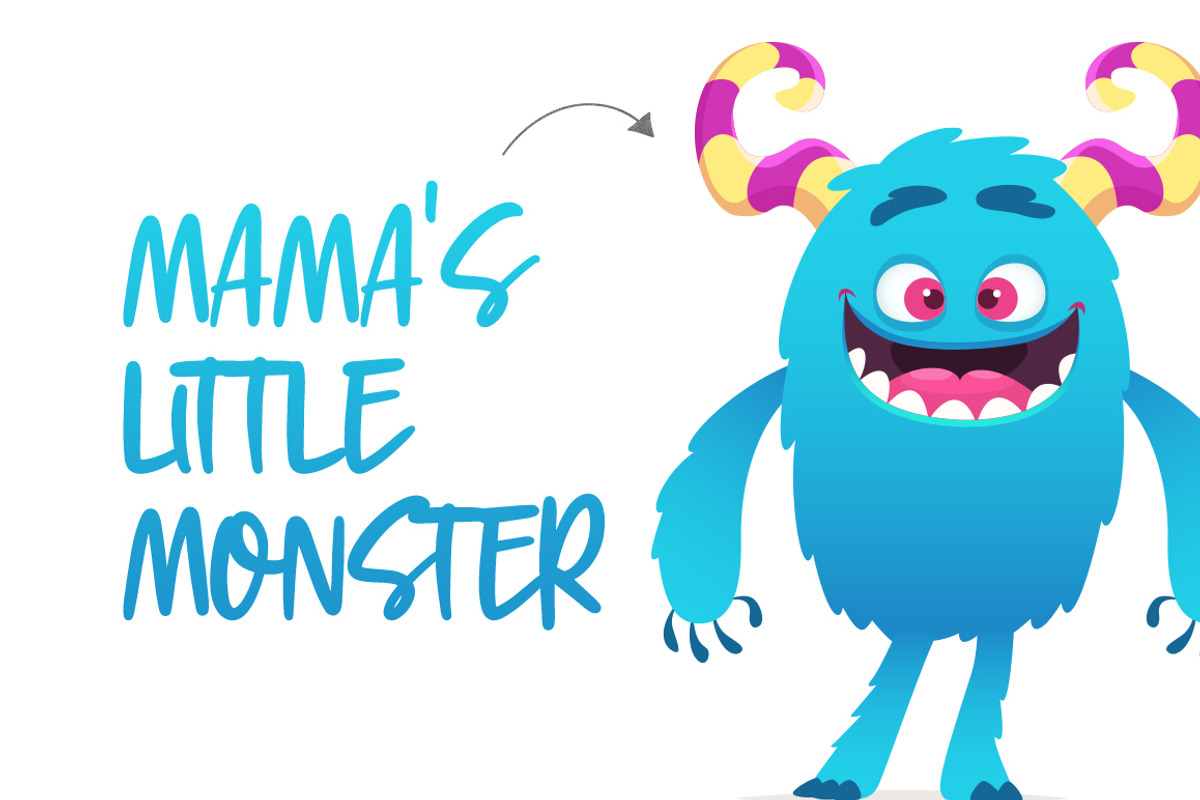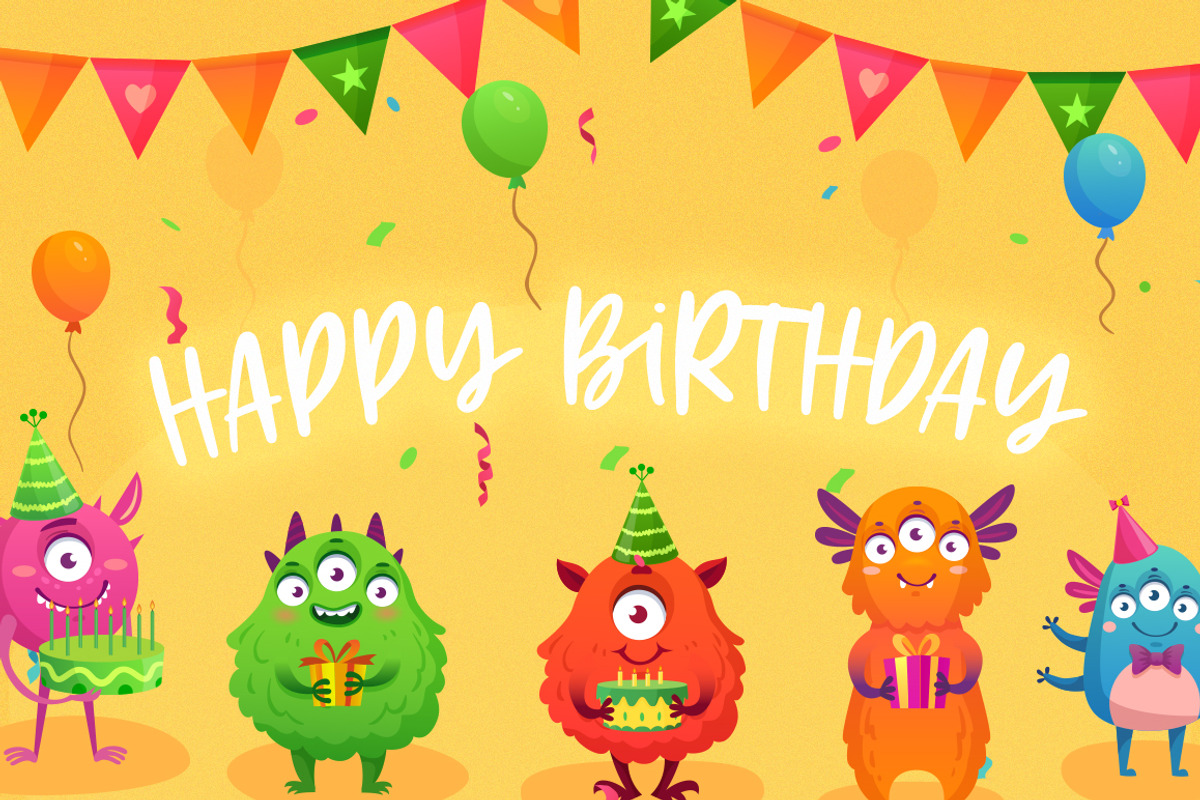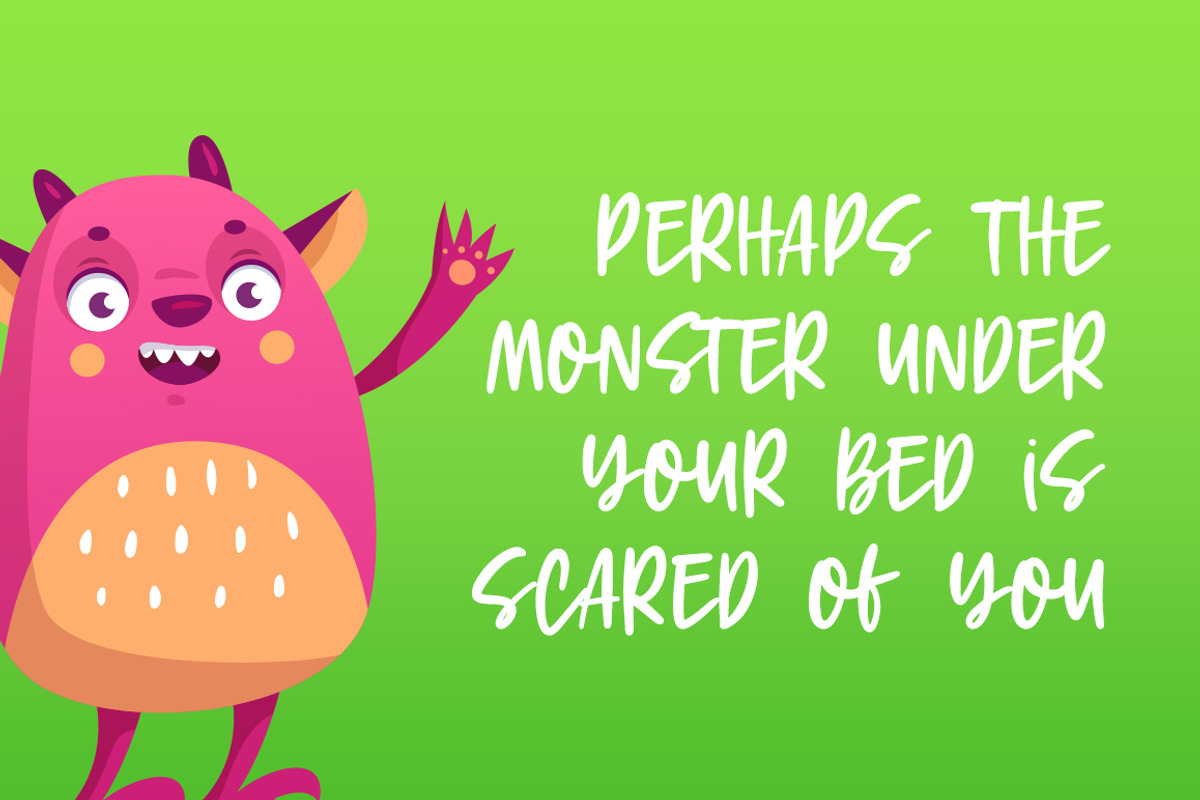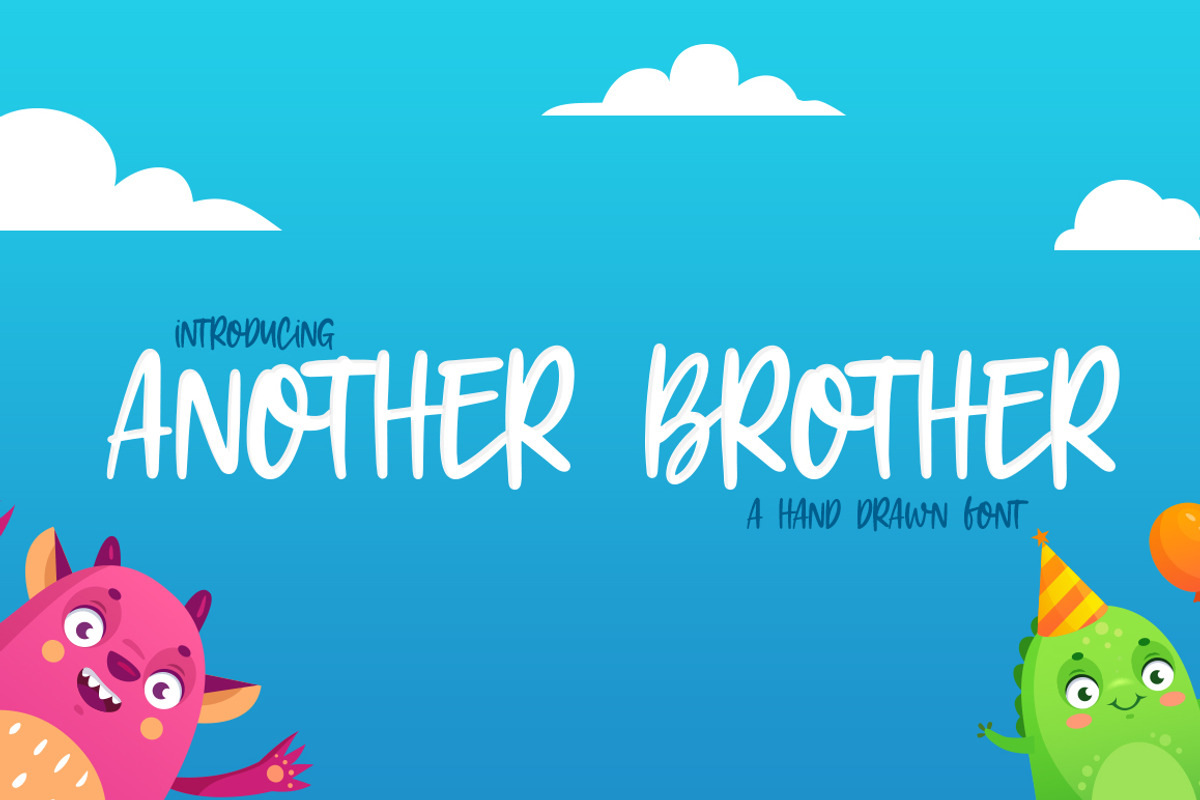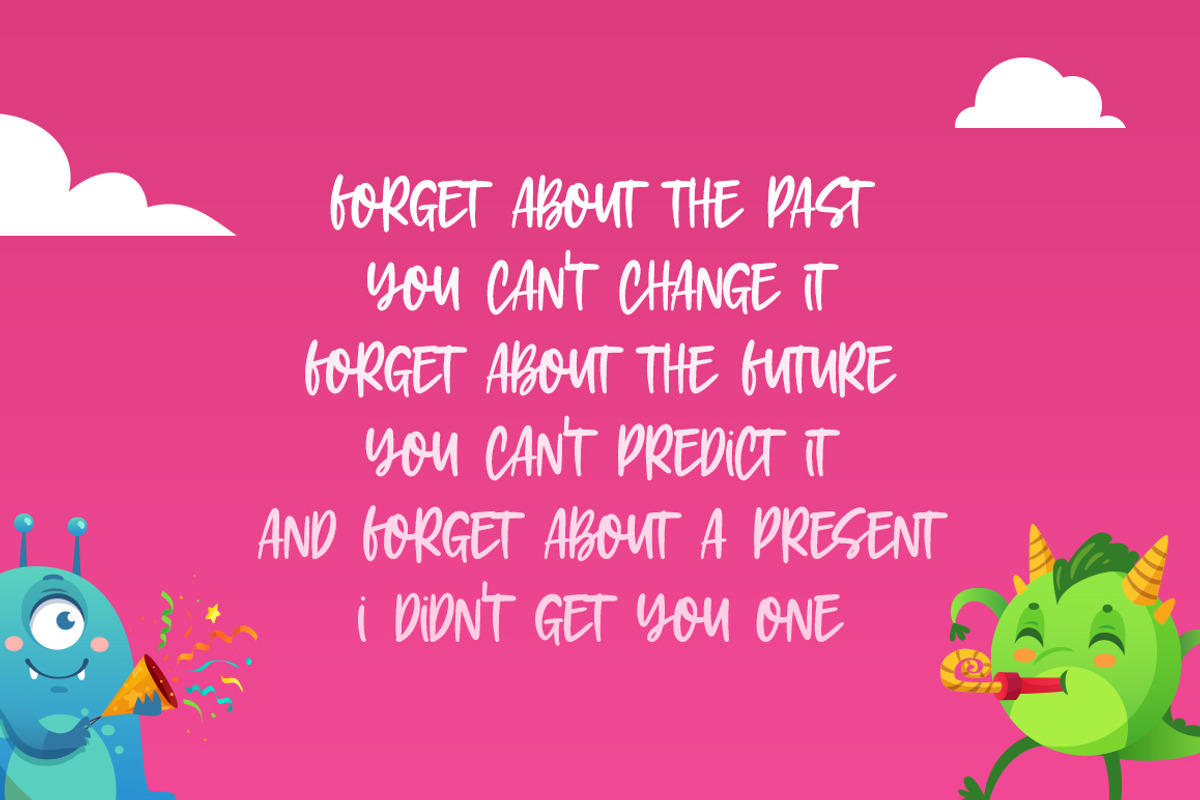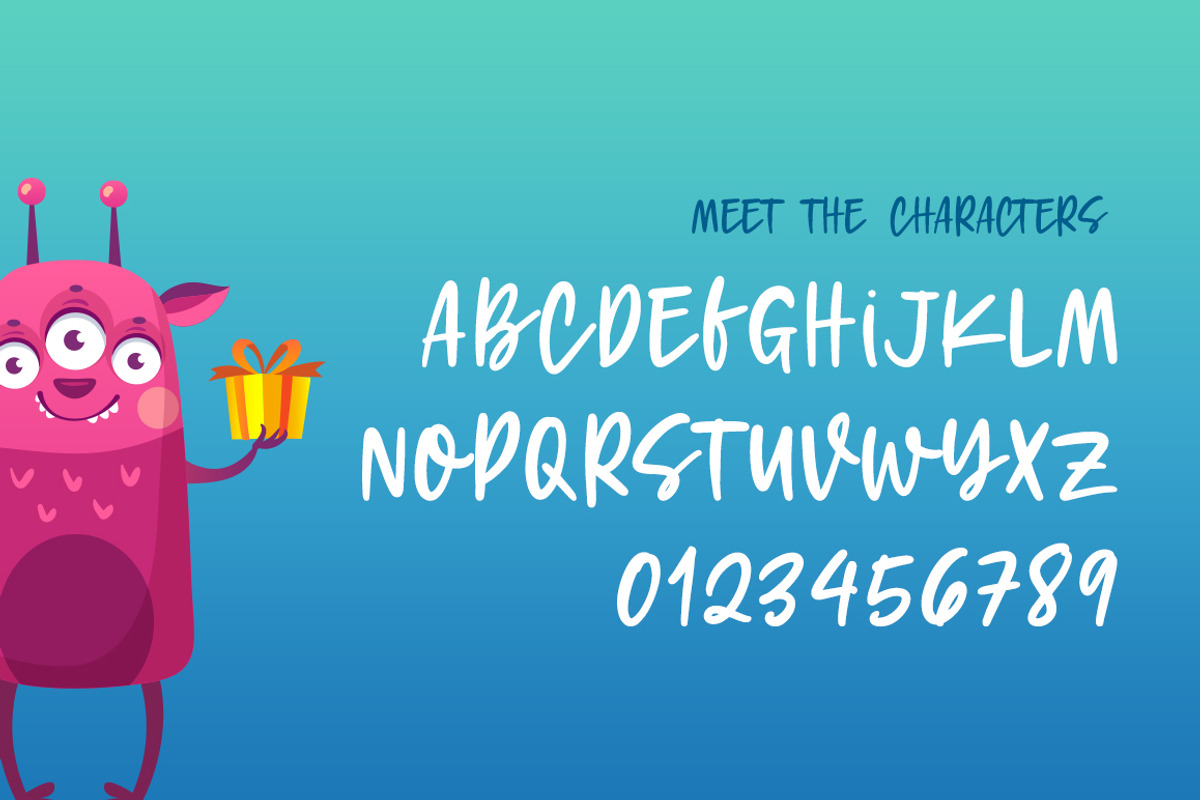
Another Brother Font
Another Brother is a hand drawn font that is both cute and crafty. Ideal for using in quotes and cuts nicely on a cricut. Strong enough to stand alone but also plays well with others! Except when it has to share candy!